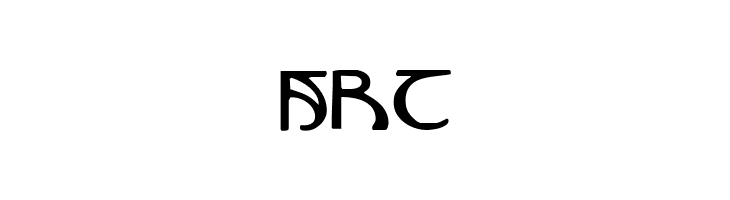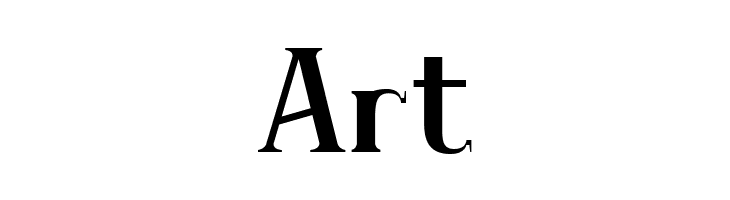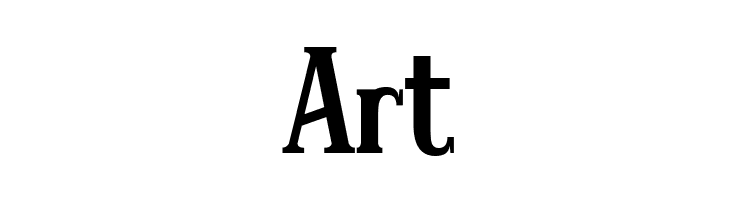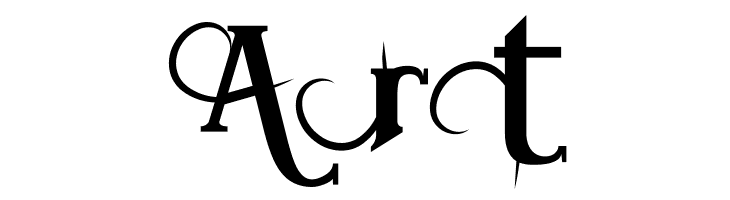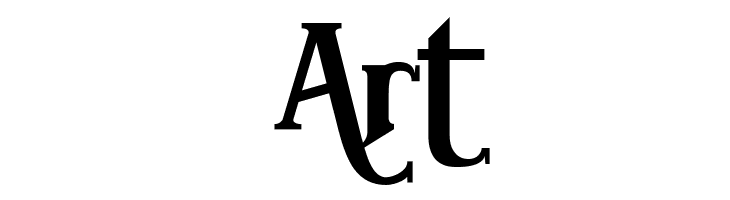
( Luc Mahler )
A bold, italic serif font with dynamic, angular serifs and a condensed style.
( Luc Mahler )
An elegant italic font with dynamic strokes and moderate contrast.
( Luc Mahler )
A high-contrast, elegant serif font with pronounced serifs and a classic appeal.
( Luc Mahler )
A bold, high-contrast font with narrow, elegant characters.
( Luc Mahler )
A tall, narrow font with high contrast and a blend of vintage and modern styles.
( Luc Mahler )
An ornate and decorative font with intricate swirls and flourishes.
A bold, brush script font with a dynamic and textured style.
A bold, brush-style font with a dynamic and artistic flair.
A unique, artistic font with modern and vintage elements, featuring bold uppercase and stylized characters.
A bold, playful font with rounded, whimsical characters.